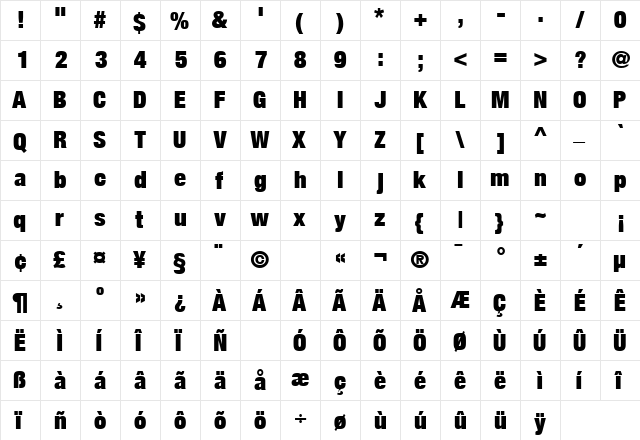
ContextRepriseUltraCondSSK Regular
Design Context for ContextRepriseUltraCondSSK Typeface
ContextRepriseUltraCondSSK takes a measured approach to typography — its balanced proportions and neutral character make it a reliable workhorse for both digital and print work. Its narrow stance lets it pack a punch even in space-constrained designs.
Pro Tip: Use ContextRepriseUltraCondSSK in both headline and body roles to test its range before committing to a single application.